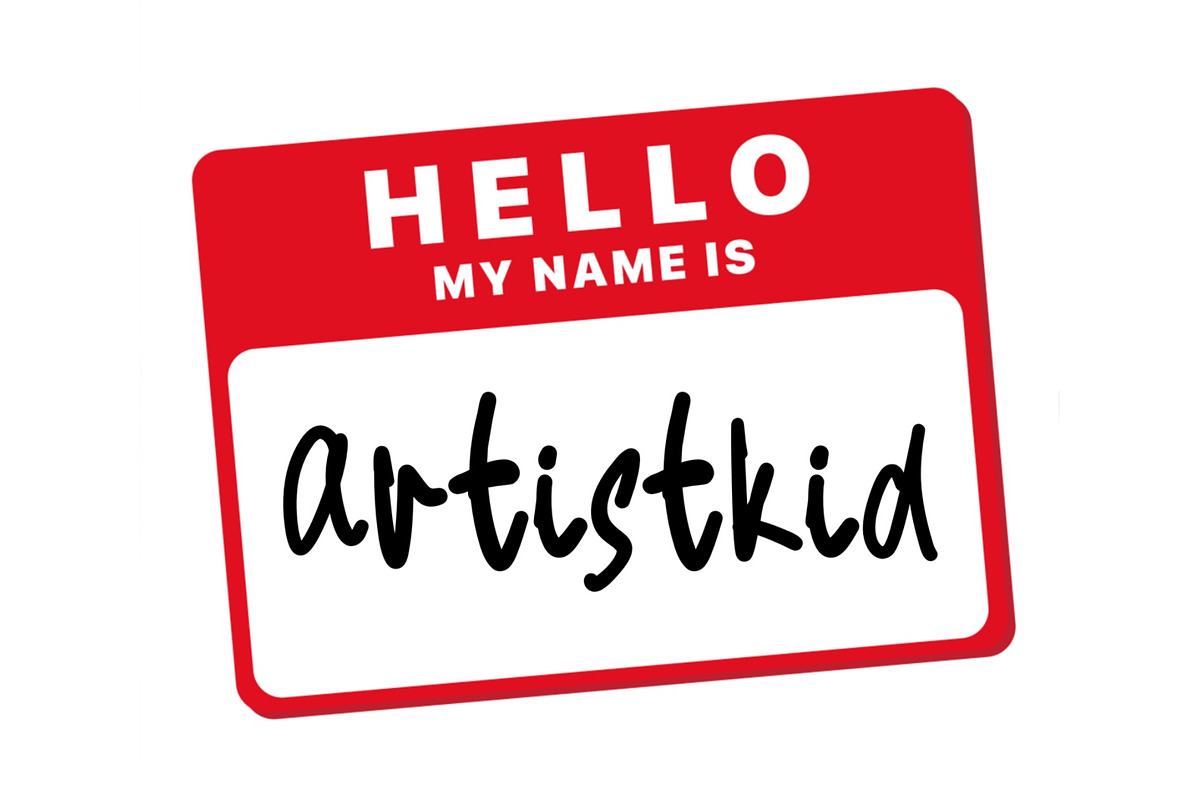
This font captures the look of genuine kid-style handwriting—making it ideal for projects that need to feel approachable, imaginative, and fun. Artiskid includes uppercase and lowercase letters, numerals, punctuation, and multilingual support to suit a variety of creative needs.
Whether you're designing for young audiences or simply want to bring joyful personality to your work, Artiskid delivers charm and creativity.